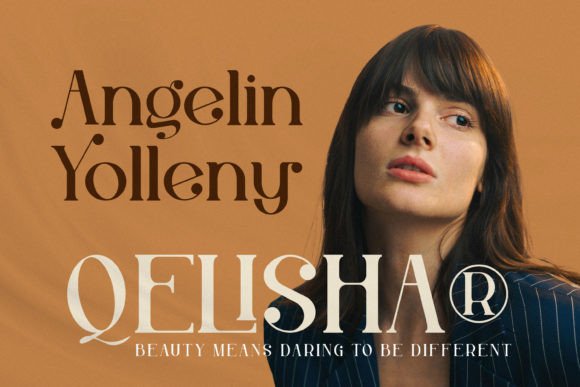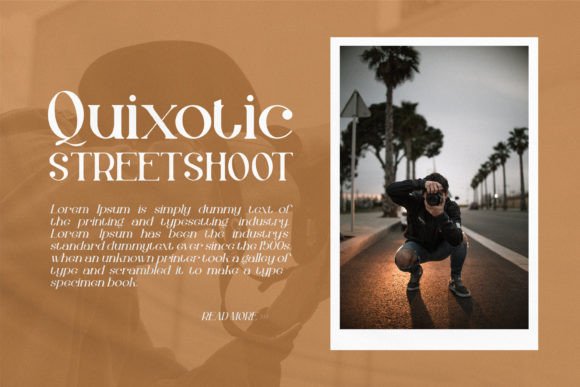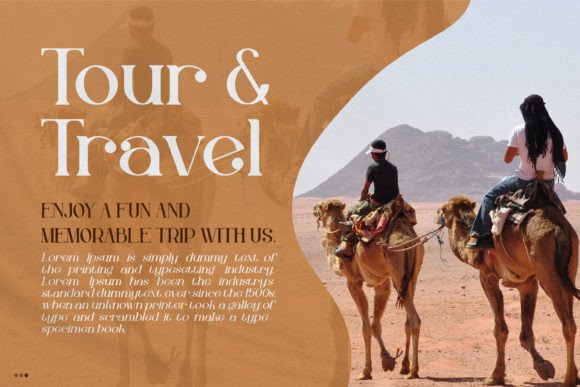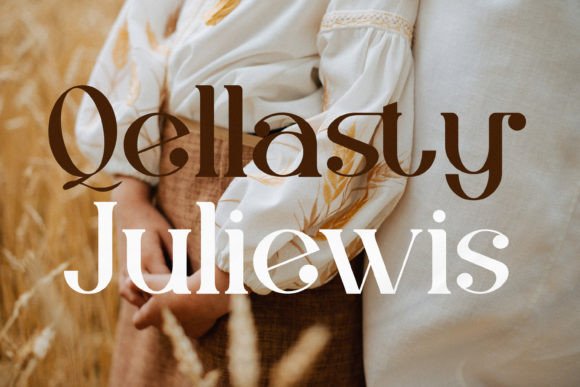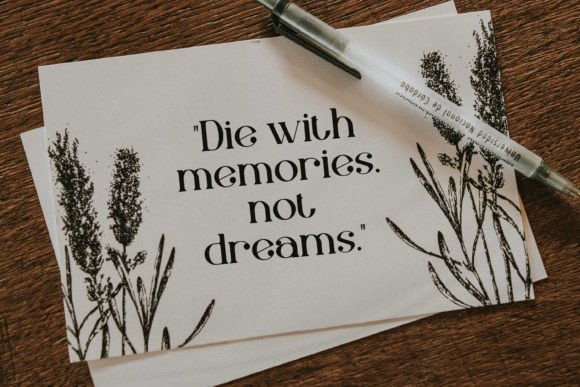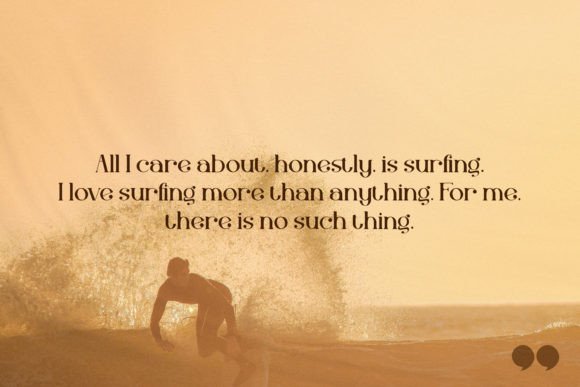
Introduction to Merdiga Font
Have you ever found yourself scrolling through your design inspiration board, desperately seeking that one perfect font to elevate your creative project? The struggle is real, but we’re here to introduce you to a game-changer: Merdiga Font. This stunning serif font is a masterclass in blending classic sophistication with modern flair, making it the ultimate design resource for any project.
With its meticulously crafted letterforms, Merdiga Font exudes refinement and adds a touch of timeless elegance to your designs. Whether you’re working on a high-quality logo, brochure, or website, this font is sure to bring a distinctive charm to your typographic expressions. And the best part? Merdiga Font is available for free download, making it an accessible addition to your design arsenal.
Key Features of Merdiga Font
- Unique, stylish font with a transparent background, perfect for adding a touch of elegance to your design.
- Perfect for use in graphic design, digital art, and other creative projects where a unique and stylish font is required.
Honest Review: Merdiga Font
I recently had the chance to work with the Merdiga Font, and I must say it’s been a game-changer for my design projects. ✨ The high quality of this font is truly impressive, making it a great addition to any design resource. The free download option is also a major plus, allowing designers to experiment with it without breaking the bank.
One of the standout features of the Merdiga Font is its versatility. It’s perfect for creative projects that require a touch of elegance and sophistication. I particularly like using it for designs that need a transparent background, as it blends seamlessly with any background image.
- High quality design that looks great on various devices
- Perfect for creative projects that require a touch of elegance
- Not suitable for projects that require a bold, playful font
- Limited character set, which may not be ideal for lengthy text
Overall, I’m thoroughly impressed with the Merdiga Font. It’s a great addition to any design resource, and I’m excited to see how it will elevate my future creative projects. ⚠️ Just be aware of its limitations, and you’ll be all set for design success.
Merdiga Font is a high-quality, versatile font that can elevate any creative project. This free download is perfect for designers, artists, and anyone looking to add a touch of sophistication to their work.
Tips for Getting the Most Out of Merdiga Font
Use Merdiga Font on a transparent background to create a clean and modern look. Experiment with different font sizes and styles to add visual interest to your designs.
Merdiga Font is perfect for a variety of design projects, including:
Alternatives to Merdiga Font
Open Sans is a modern sans-serif font designed by Steve Matteson. It’s ideal for creative projects that require a clean and professional look. This high-quality font is available for free download and can be used for both personal and commercial purposes. With its transparent background, Open Sans is perfect for designing websites, mobile apps, and print materials. Compared to Merdiga Font, Open Sans has a more straightforward design and is easier to read in smaller font sizes.
Lato is a beautiful sans-serif font designed by Łukasz Dziedzic. It’s suitable for a wide range of creative projects, including logos, icons, and typography. This font is available for free download and can be used in both web and print design. Lato’s high-quality design and transparent background make it an excellent alternative to Merdiga Font, offering a more elegant and refined look.
Montserrat is a geometric sans-serif font designed by Julieta Ulanovsky. It’s perfect for urban-themed projects, such as cityscapes and modern architecture. This high-quality font is available for free download and can be used in both web and print design. Montserrat’s transparent background and clean design make it a great alternative to Merdiga Font, offering a more edgy and industrial look.
Is the Merdiga Font suitable for use on a transparent background?
Yes, the Merdiga Font is designed to be used on a transparent background. The font’s design is optimized for use on a transparent background, and it will display correctly in most design applications. However, please note that some design applications may require additional settings to ensure the font displays correctly on a transparent background.